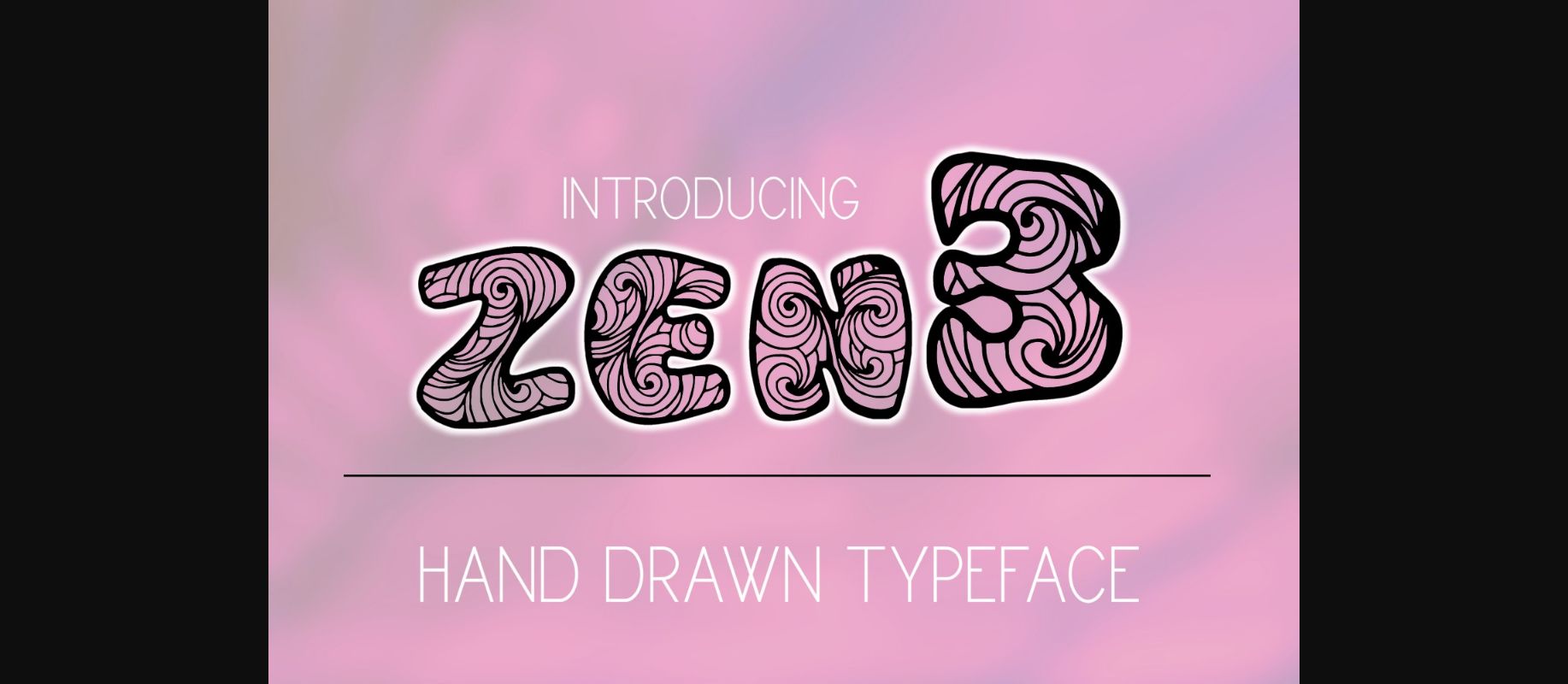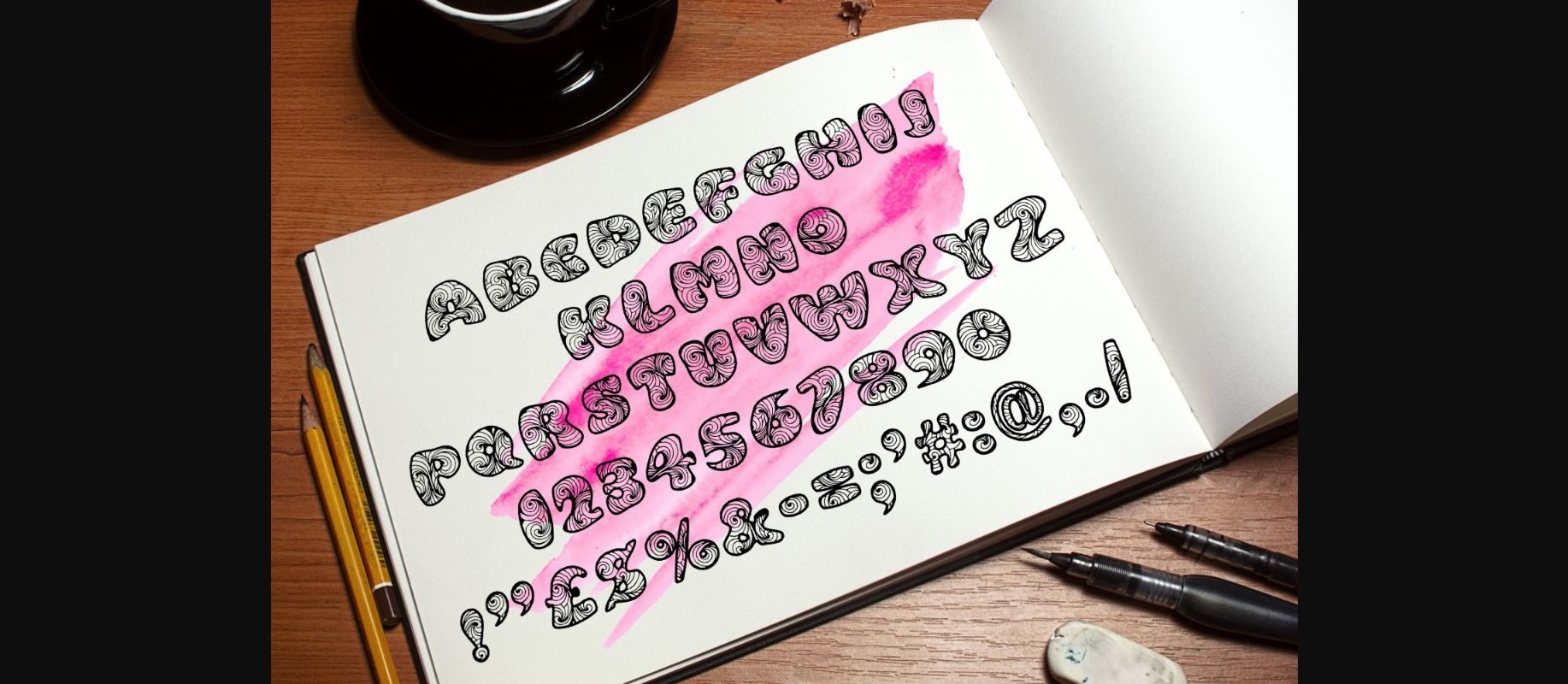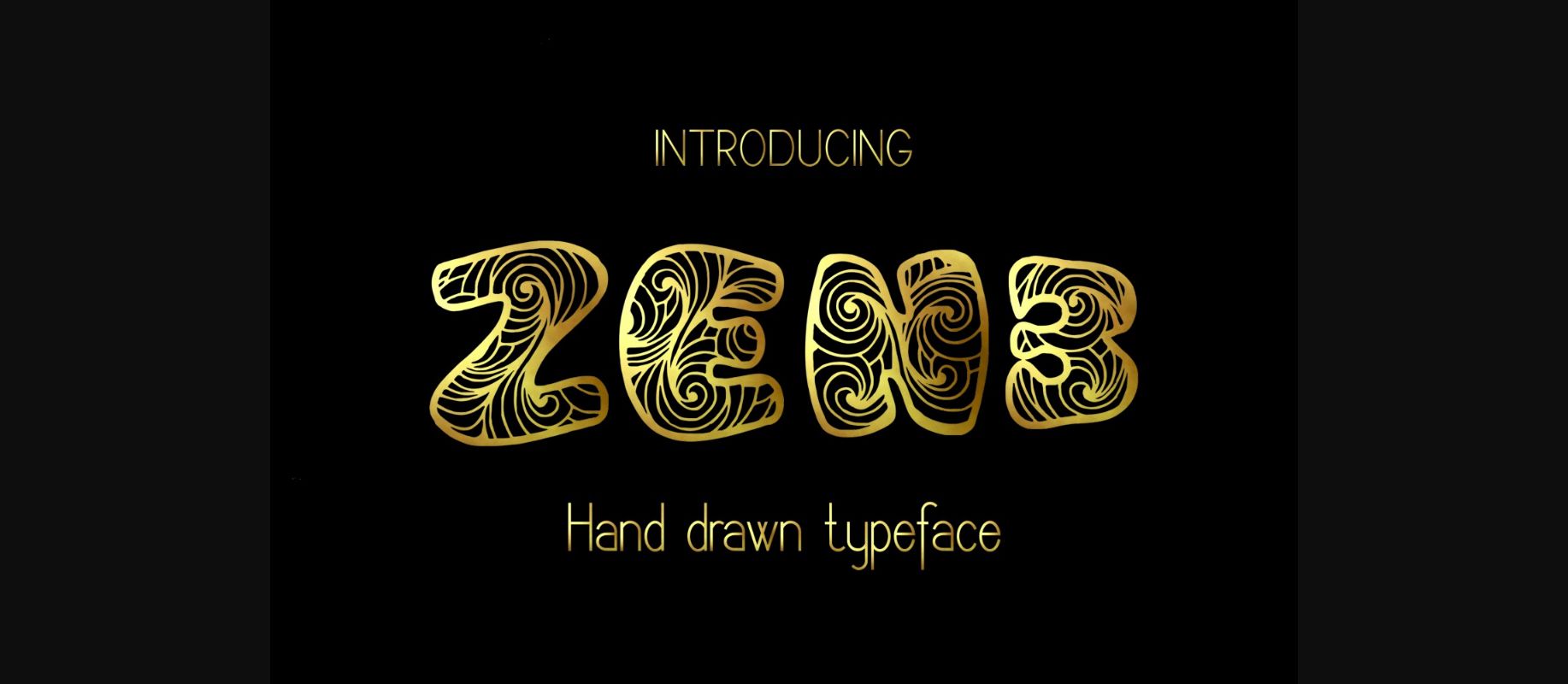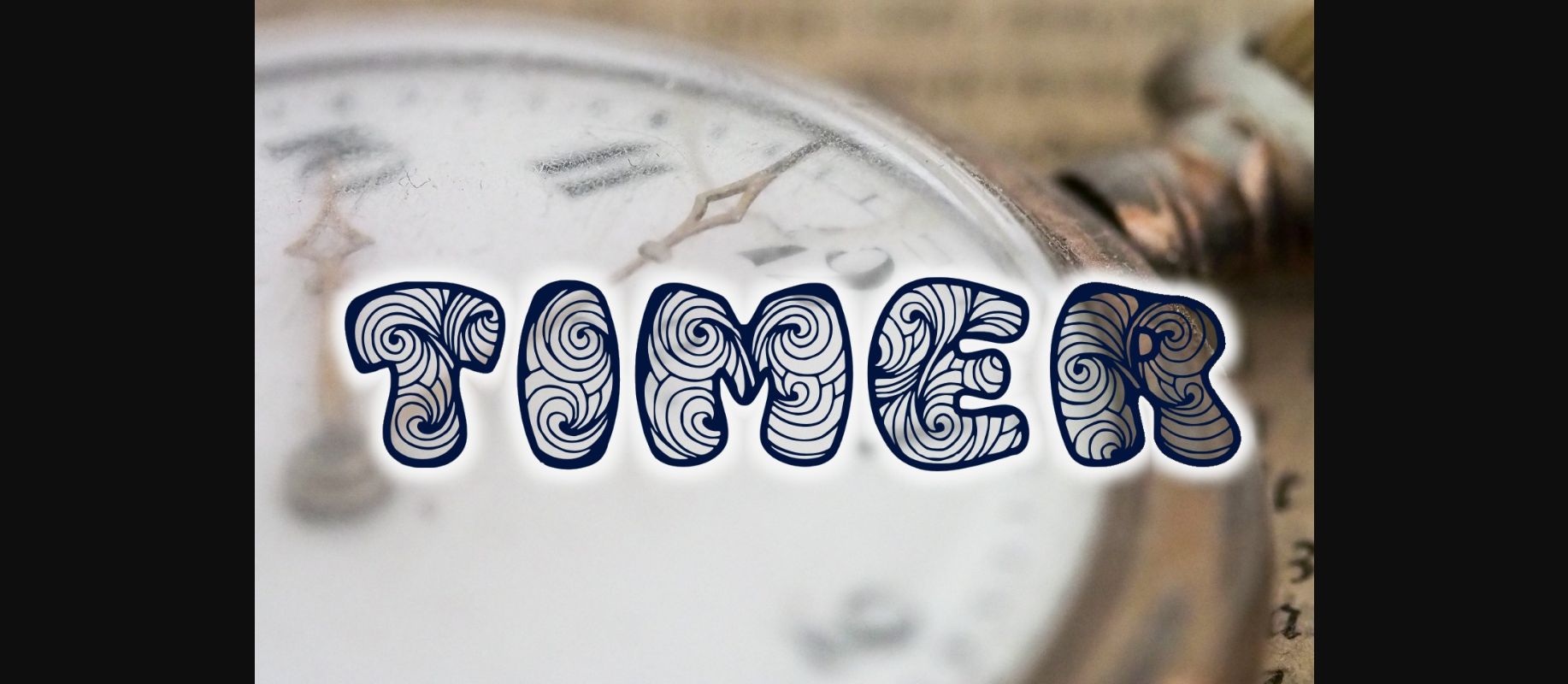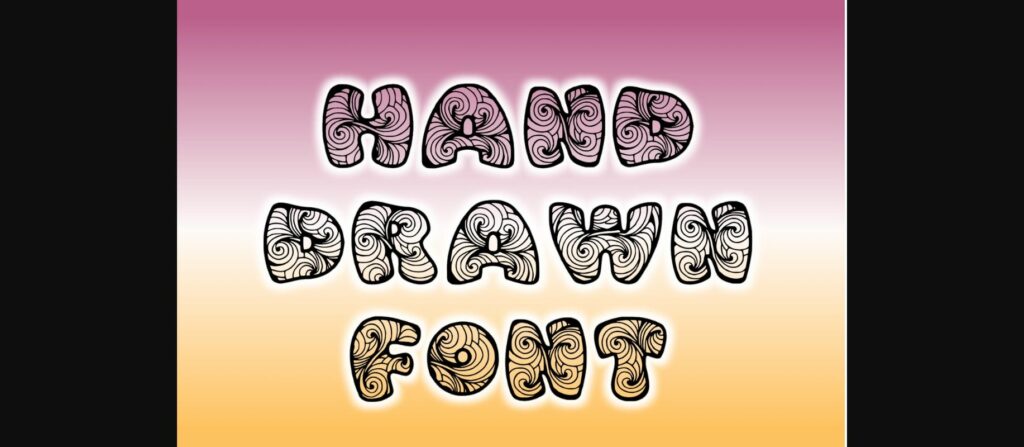
About Zen3 Font
Zen3 is a decorative hand-drawn font.
This font is great for titling, signage, poster, flyers or t-shirts design, headlines, coloring pages or even use it as embroidery pattern!